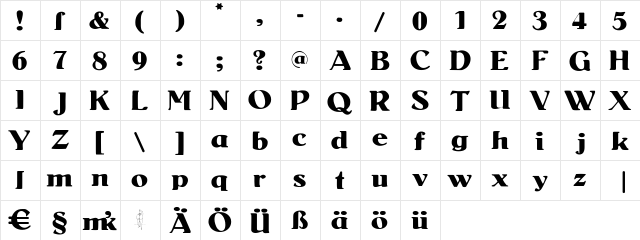
Senats-Antiqua Regular
Design Context for Senats-Antiqua Typeface
Senats-Antiqua takes a measured approach to typography — its balanced proportions and neutral character make it a reliable workhorse for both digital and print work.